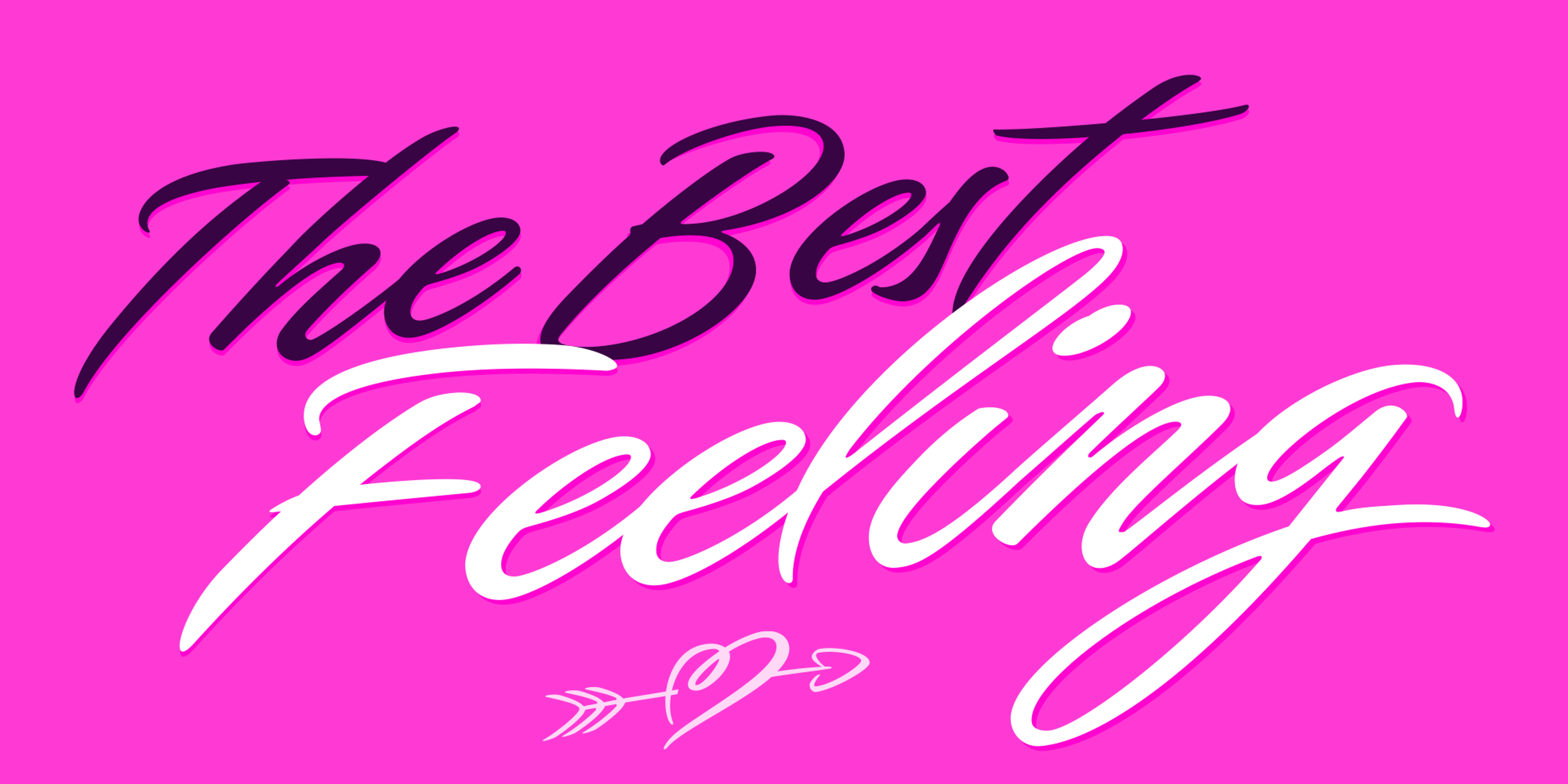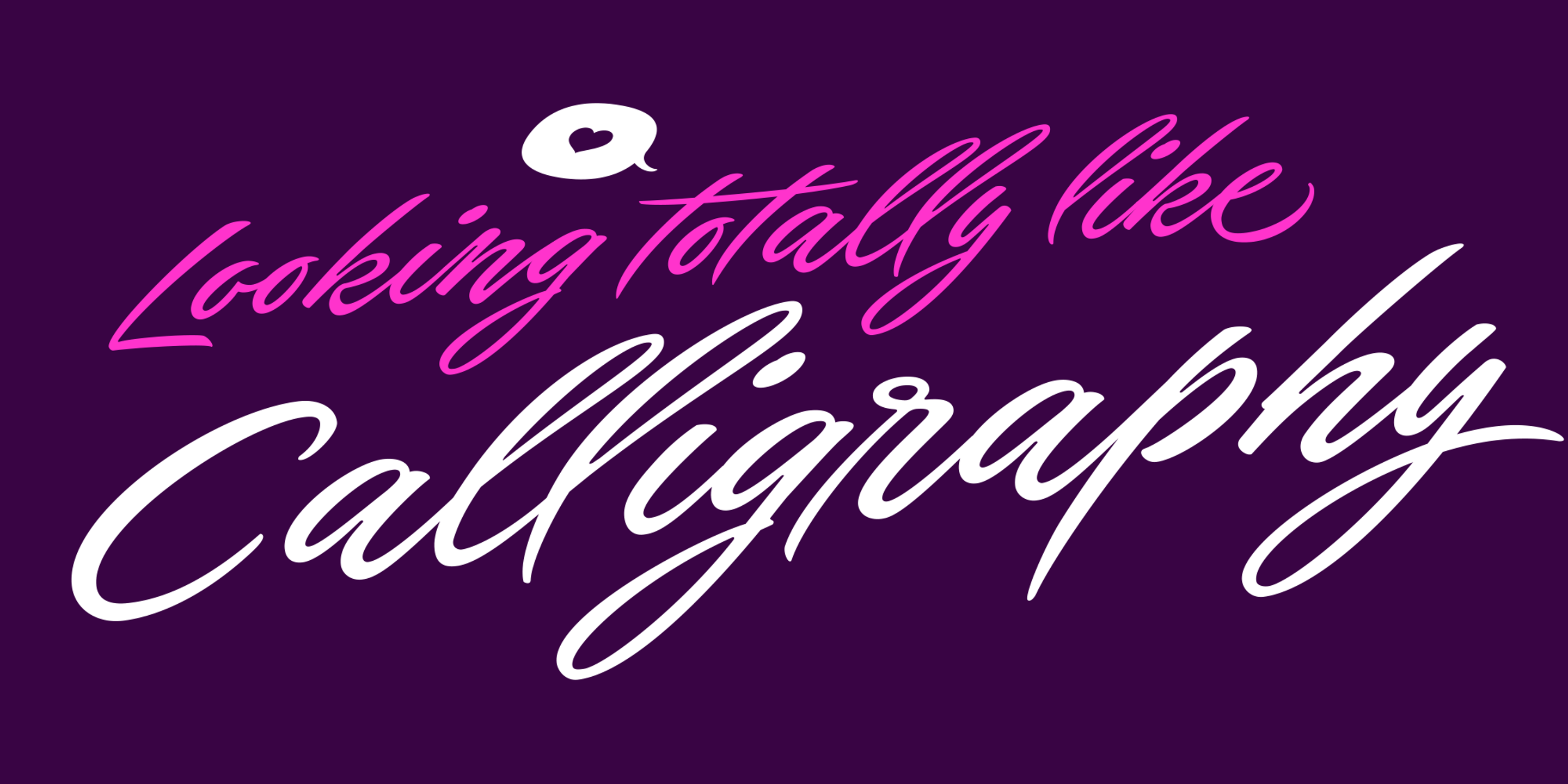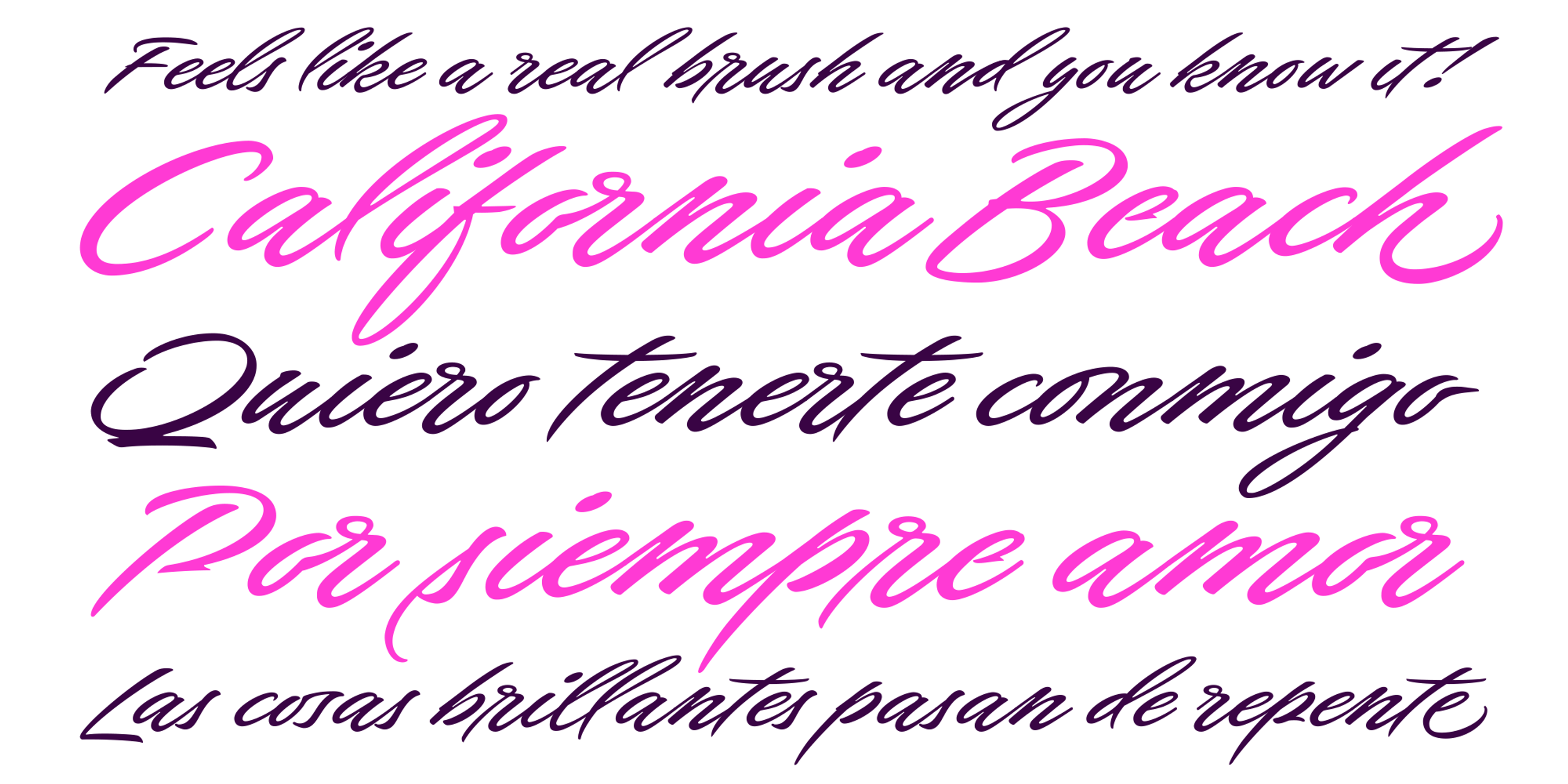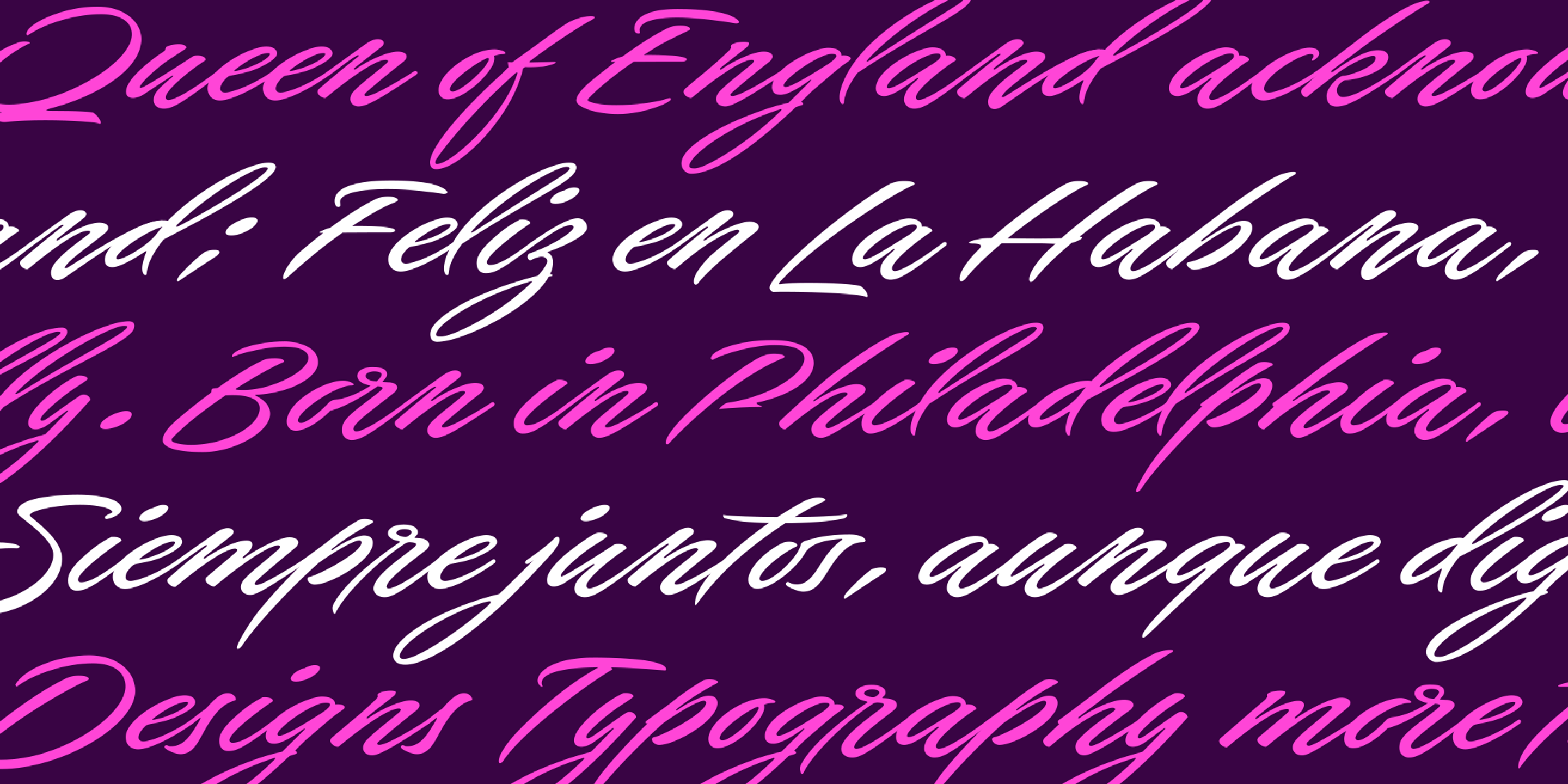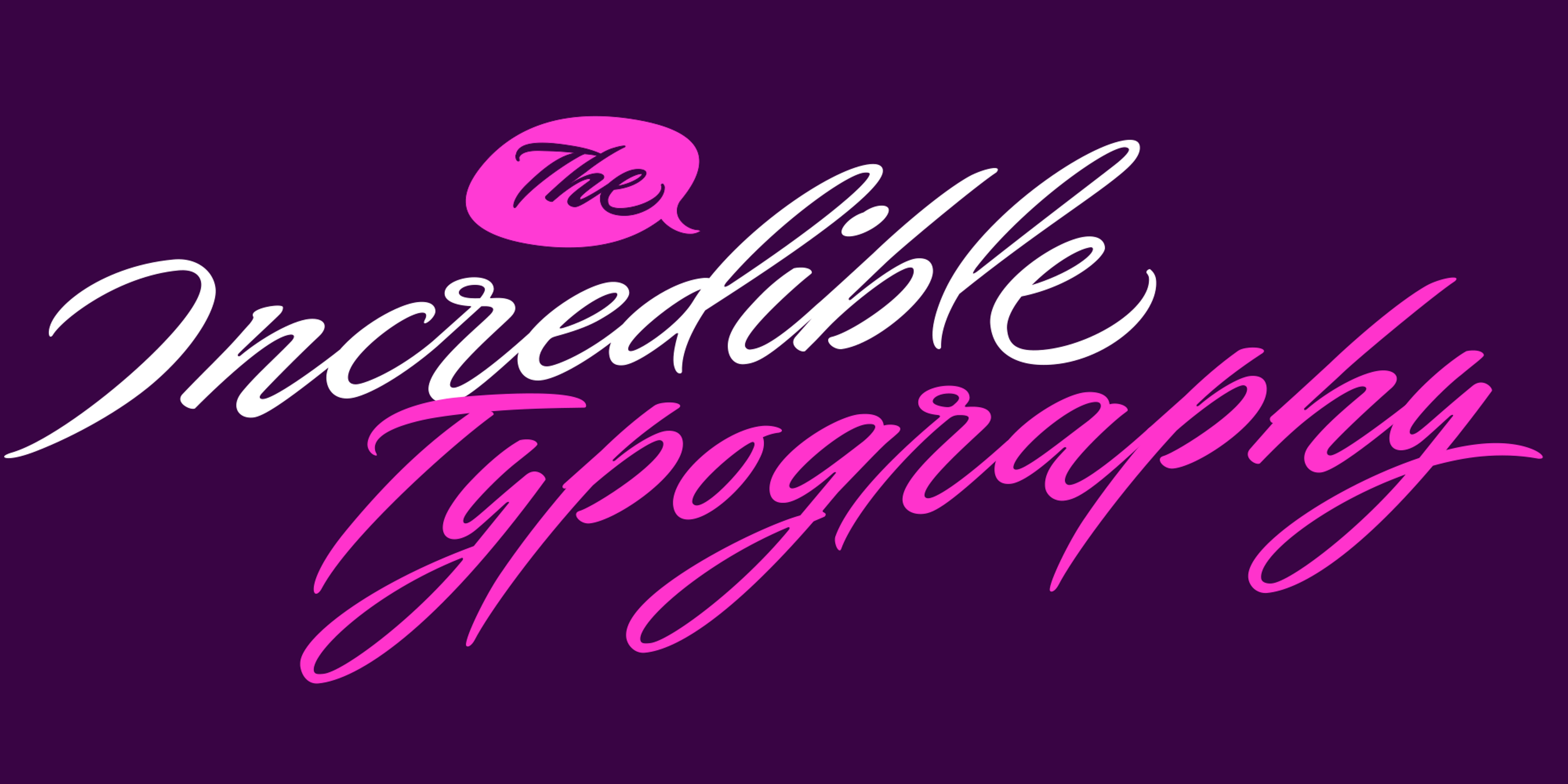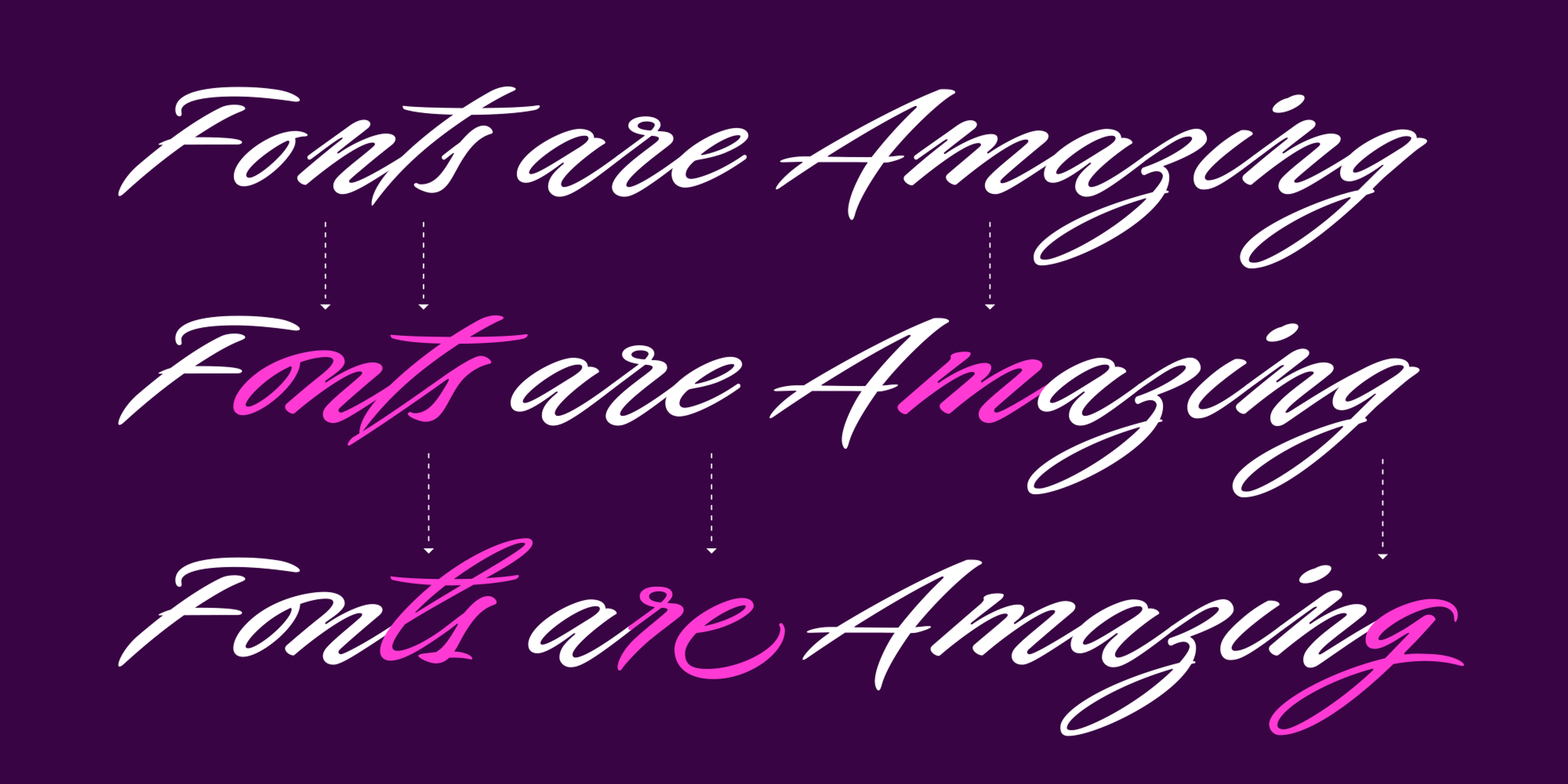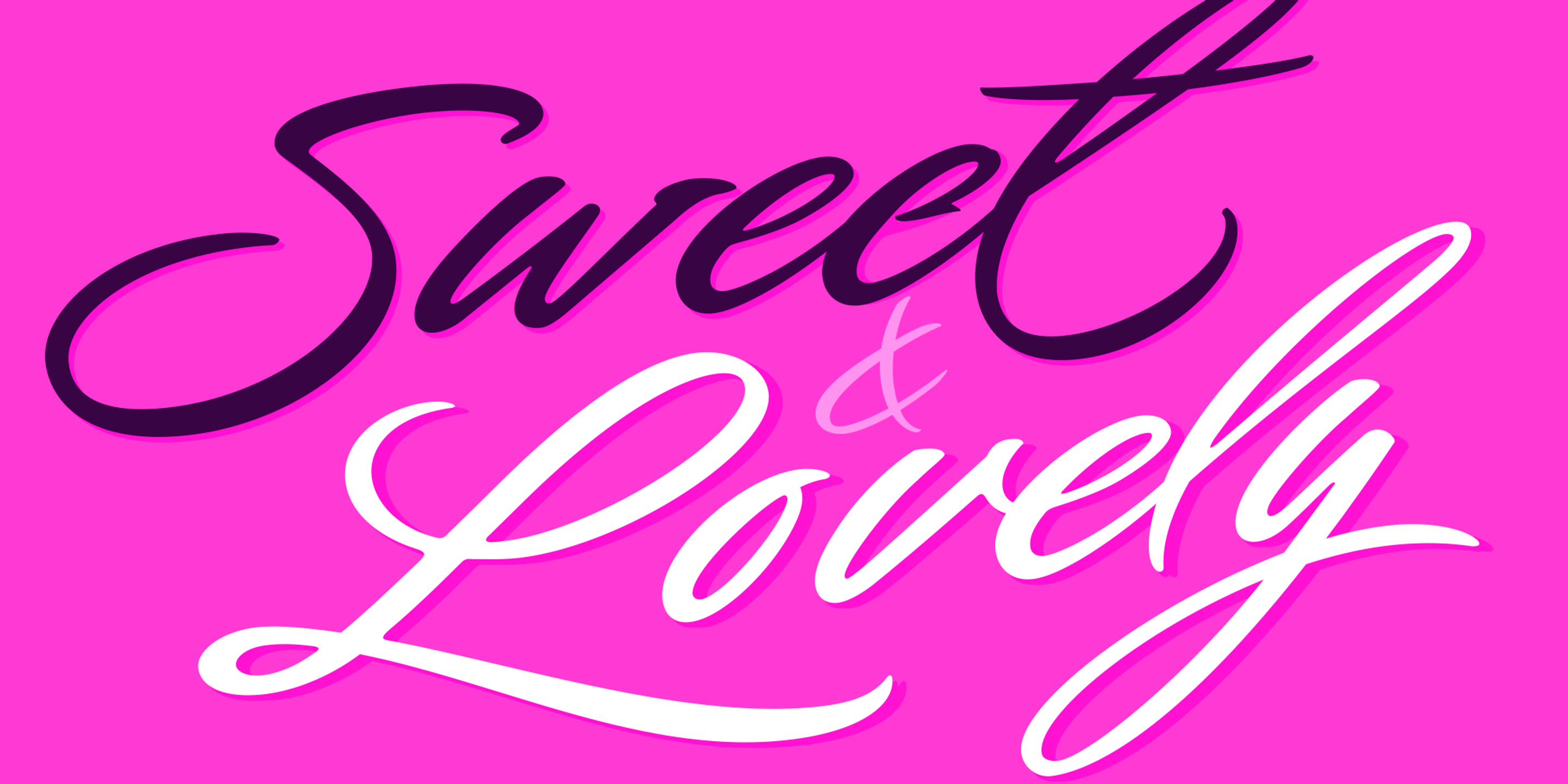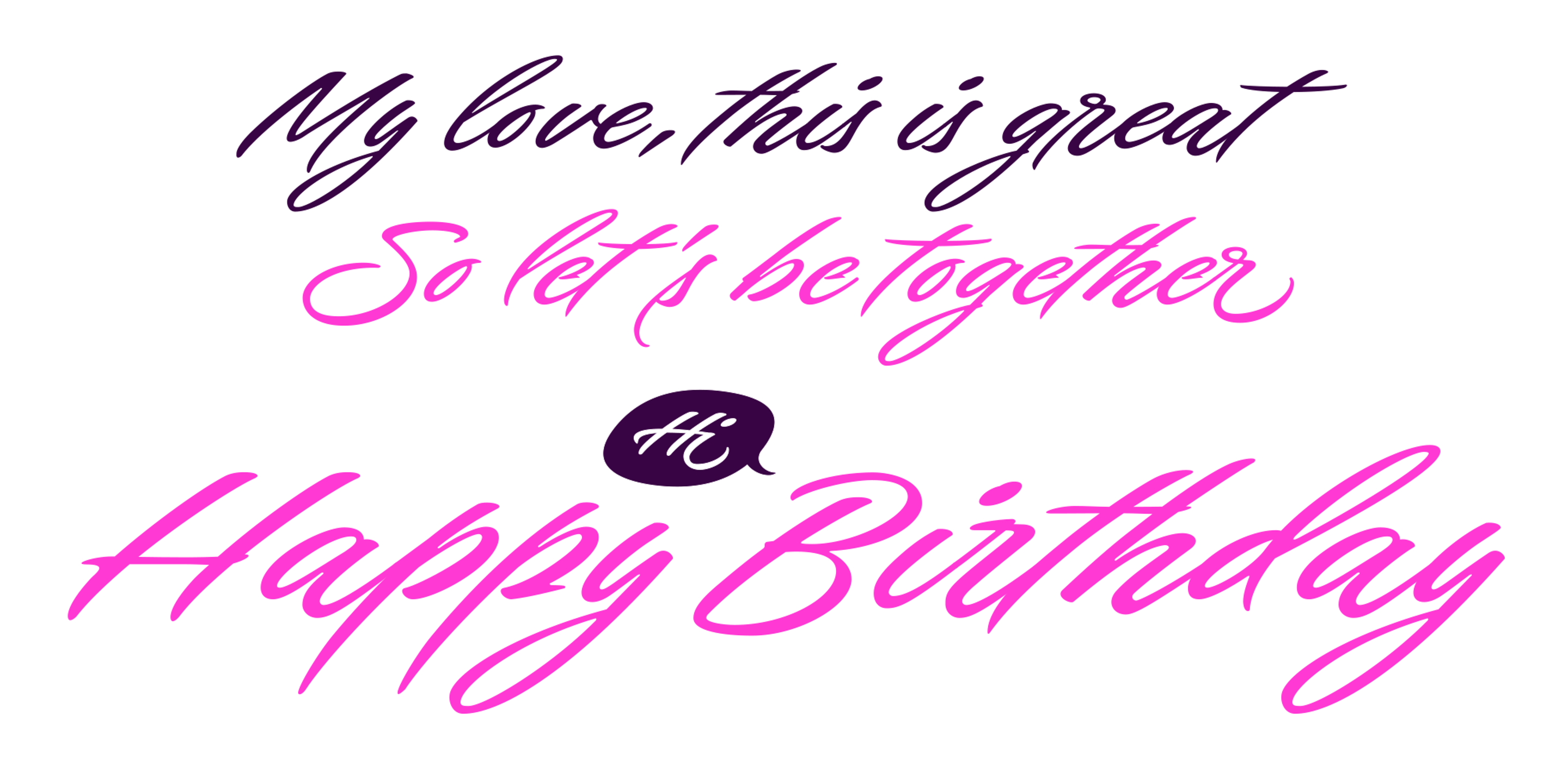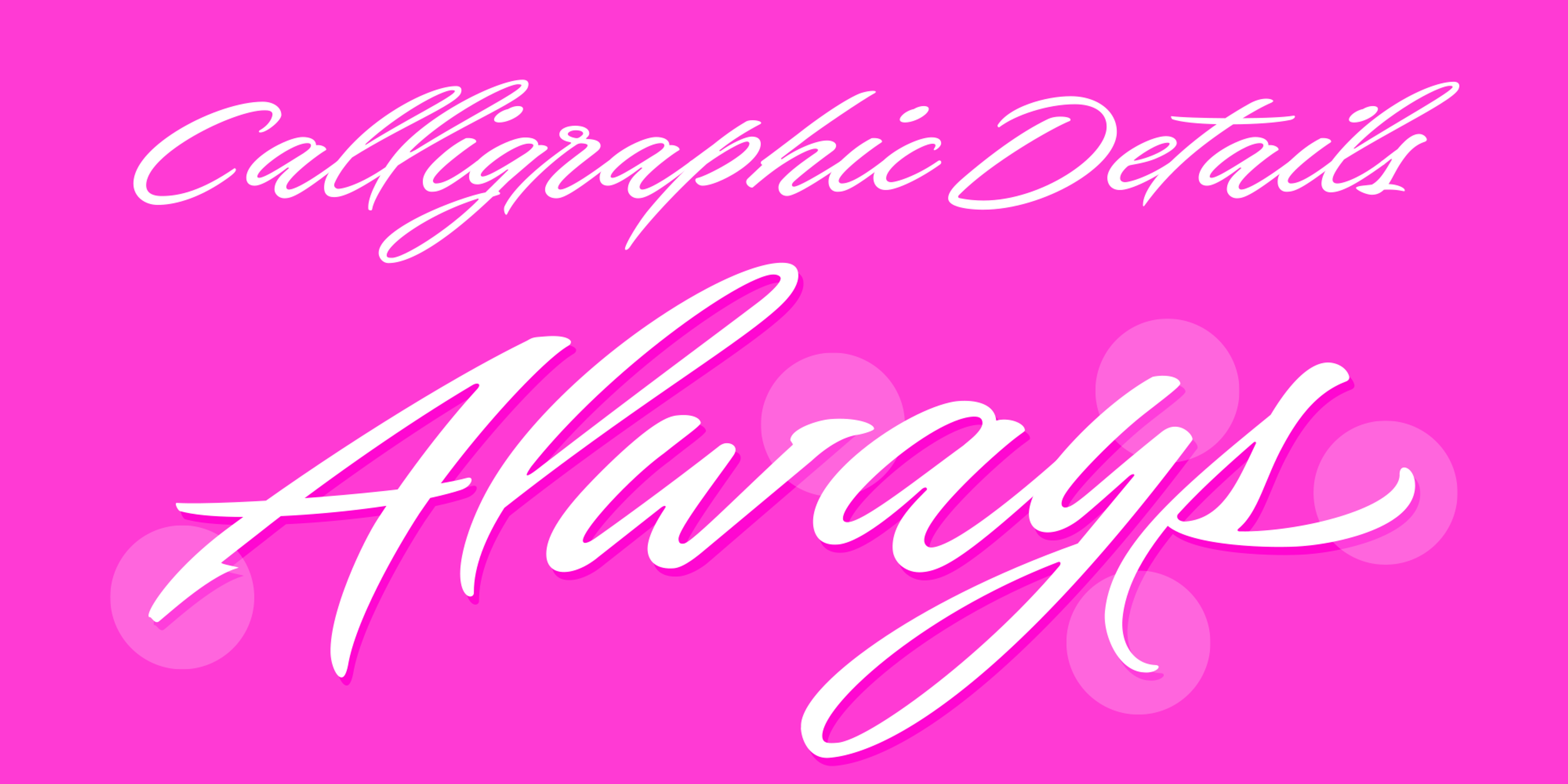
Live is an dynamically vibrant, free-flowing script with a youthful spark and assured flair. Inspired by modern calligraphy and brush lettering, its smooth strokes and rhythmic curves bring energy and elegance to any layout. At the same time, the alternates and ligatures maintain a genuine hand-painted look. Perfect for fashion branding, magazine spreads, music packaging, or beauty products, it adds a stylish, confident touch. Pair it with catchwords and ornaments to dial up the charm.
- Common Ligatures
- Discretionary Ligatures
- Stylistic Alternates
- Stylistic Sets
- Swashes
- Titling Capitals